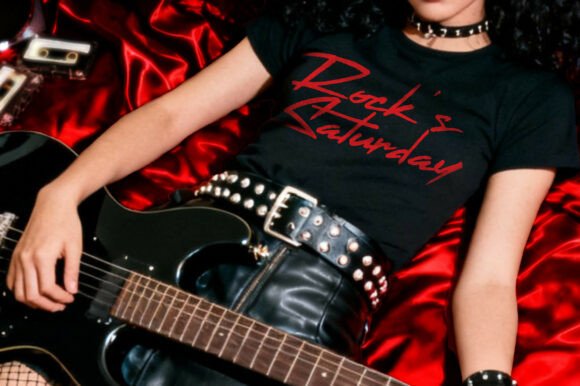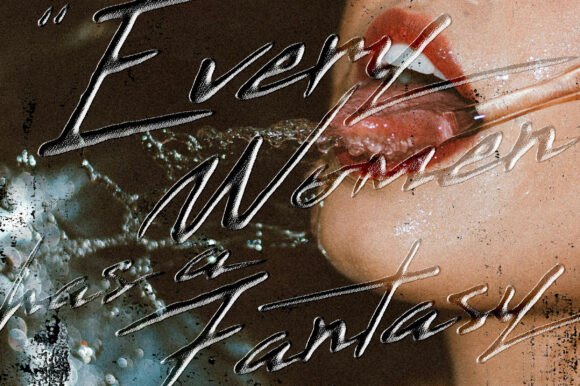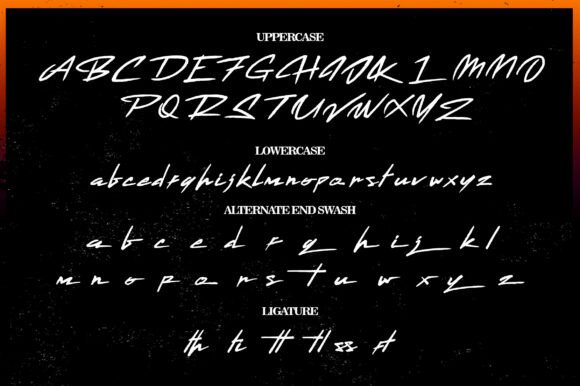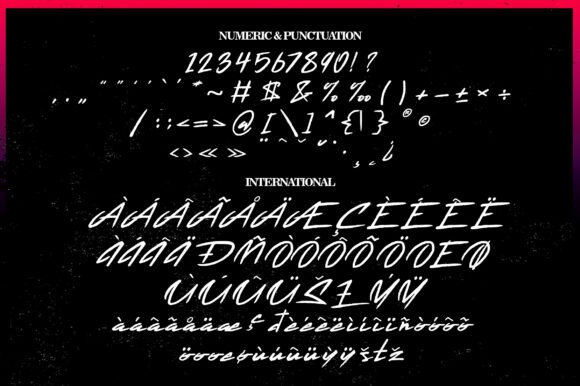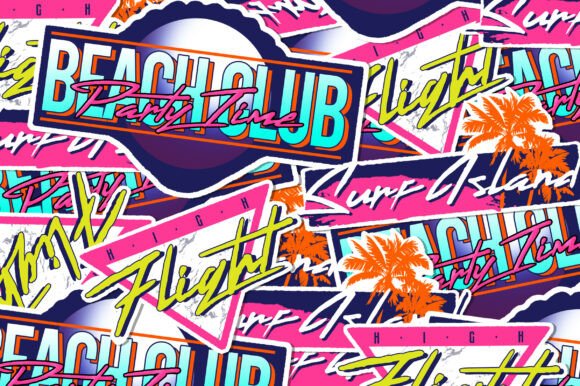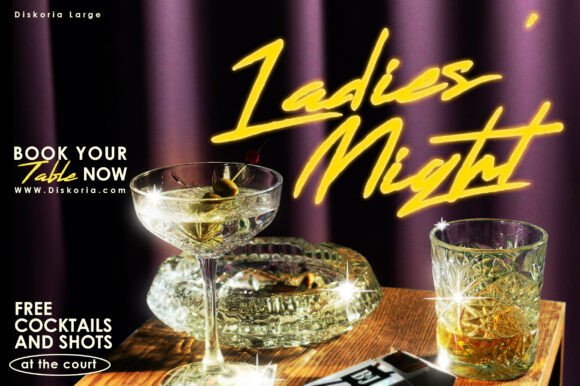
Introduction to Flamingo’s Font
Remember that moment when you stumbled upon the perfect font that made your design come alive? It’s a feeling that’s hard to describe, but it’s a mix of excitement, relief, and a dash of magic. For designers, finding the right font can be the difference between a good design and a great one. And that’s exactly what we’re about to dive into – a font that’s sure to make your creative projects stand out from the crowd.
Meet Flamingo’s Font, a hand-drawn script typeface that’s inspired by the bold energy of 1980s retro lettering. With its smooth brush strokes, flowing curves, and expressive personality, this font is the perfect addition to any design resource. Whether you’re working on a personal project or a high-quality commercial design, Flamingo’s Font gives you the flexibility to create unique lettering styles with ease, all while maintaining a transparent background that lets your design shine.
Key Features of Flamingo’s Font
- High-quality design resource with a unique, hand-drawn style perfect for creative projects.
- Comes with a transparent background, allowing for easy customization and integration into various designs.
- Includes 8 different font styles, each with its own distinct flair and personality.
- Designed at a high resolution (300 DPI) for use in high-end printing and digital applications.
- Perfect for designers and artists looking for a unique, high-quality font to elevate their creative projects.
Honest Review: Flamingo’s Font
- ✨ Beautiful, hand-drawn style that adds a touch of whimsy to any design
- ✨ Transparent background, making it easy to use in a variety of design contexts
- ✨ High-quality download, with clear and crisp lettering
- ⚠️ Limited character set, which may not be suitable for extensive text-based projects
Flamingo’s Font is a high-quality design resource that offers a unique and stylish aesthetic for creative projects. With its transparent background, this font is perfect for adding a touch of elegance to your designs.
Tips for Getting the Most Out of Flamingo’s Font
To get the most out of Flamingo’s Font, try experimenting with different font sizes, colors, and combinations to create unique and eye-catching designs.
Flamingo’s Font is perfect for a variety of creative projects, including:
- Business cards and branding materials.
- Blog posts and social media graphics.